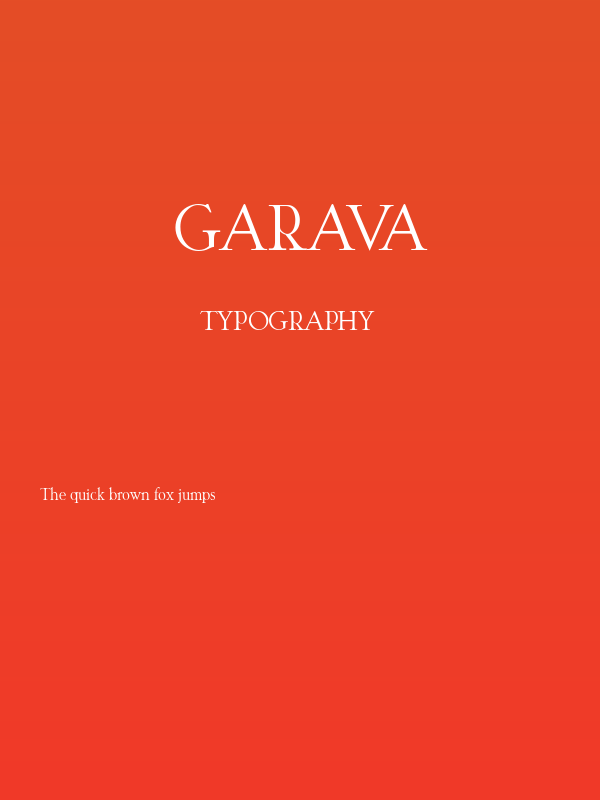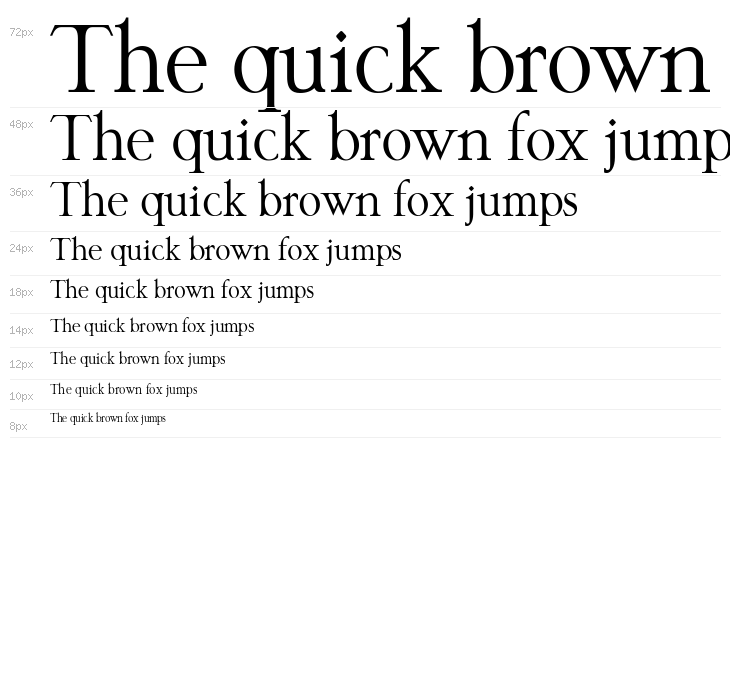
Garava Font
Garava Description
This typeface exudes a classic elegance with its refined serif details and balanced proportions. The uppercase letters are stately and well-defined, while the lowercase characters maintain a graceful flow, enhancing readability. The numerals are clear and consistent, matching the overall sophisticated aesthetic. Special characters are thoughtfully designed, ensuring versatility across various applications. The font's structure is both traditional and timeless, making it suitable for a wide range of design needs.
| Overall Style | Classic |
| Use Case | Headlines, Body text, Logos |
| Proposed Projects | Ideal for editorial design, book covers, formal invitations, and branding projects that require a touch of sophistication. |